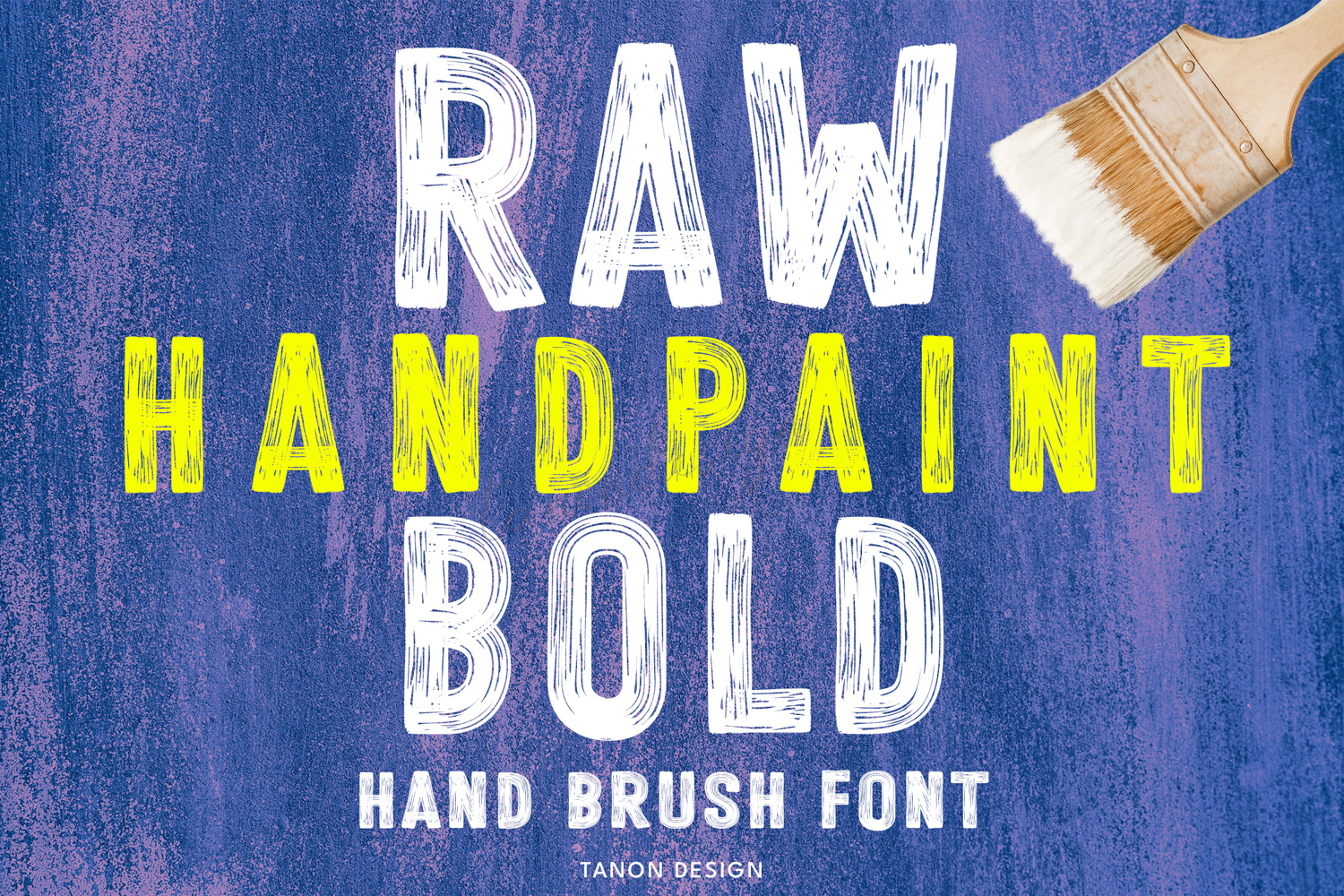
Raw Hand Paint Bold brush fonts, condensed, Rough font
RawHandPaintBold
Introducing “Raw Hand Paint Bold” brush fonts a beautiful Bold, condensed handwritten brush font. It will look fantastic on all your project designs including t-shirt designs, mug designs, digital designs, crafts, cards, and any projects!